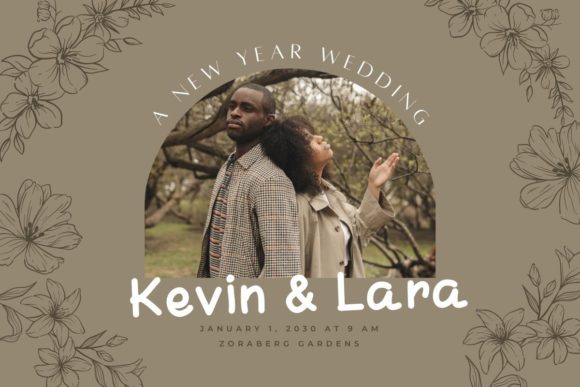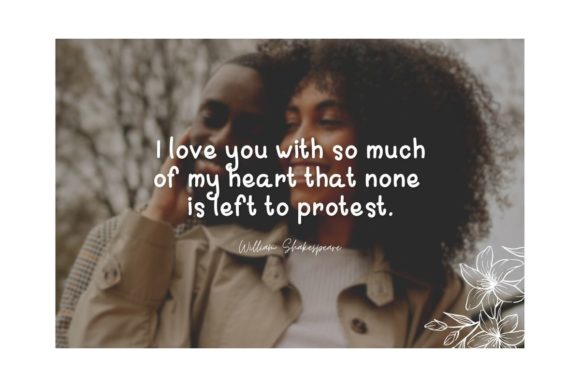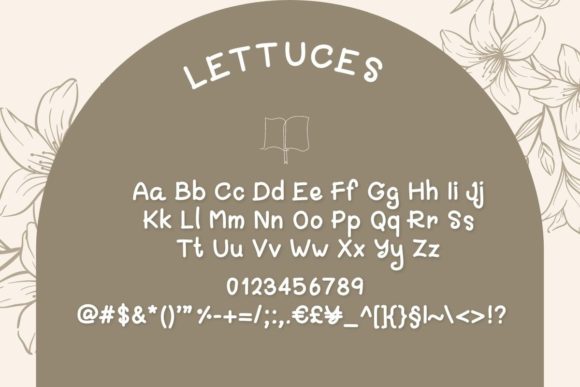
Introduction to Lettuces Font
Remember the moment when you stumbled upon the perfect font for your project? The one that made your design come alive and left you wondering how you ever managed without it? For many designers, that moment is what makes all the hard work worth it. And for those who are about to discover the magic of the Lettuces Font, we’re excited to share its charm with you.
This charming handwritten font is a treasure trove of creativity, perfect for logos, branding, wedding invitations, and more. With its high-quality design, the Lettuces Font is a valuable addition to any designer’s toolkit. Whether you’re working on a free download project or a paid commission, this font is sure to elevate your creative project to the next level.
Key Features of Lettuces Font
- High-quality design: Lettuces Font offers a unique and creative design perfect for any project.
- High-resolution design: This font is designed with high resolution in mind, making it perfect for large-scale creative projects.
- Perfect for design projects: Lettuces Font is ideal for use in creative projects, including logos, branding, and editorial design.
Honest Review: Lettuces Font
I recently stumbled upon the Lettuces Font, and I must say it’s been a pleasant surprise. This high-quality font is a great addition to any design project, whether you’re working on a creative campaign or a personal branding initiative.
What works well: ✨ The font’s unique and quirky design makes it perfect for adding a touch of personality to your work. The transparent background allows for seamless integration into any background, making it a versatile design resource.
Overall, I’m impressed with the Lettuces Font. It’s a great addition to any designer’s toolkit, and I’d definitely recommend it to anyone looking for a unique and high-quality font.
- Unique and quirky design
Tips for Getting the Most Out of Lettuces Font
For the best results, pair the Lettuces Font with a transparent background or a contrasting color scheme. Experiment with different font sizes and styles to achieve the desired visual effect. You can also use the font in combination with other design resources to create a unique and creative project.
The Lettuces Font is ideal for creative projects that require a high-quality, unique font. Some common use cases include: branding and logos, infographics, posters, and social media graphics. With its transparent background and versatile design, the Lettuces Font is a valuable design resource for any creative project.